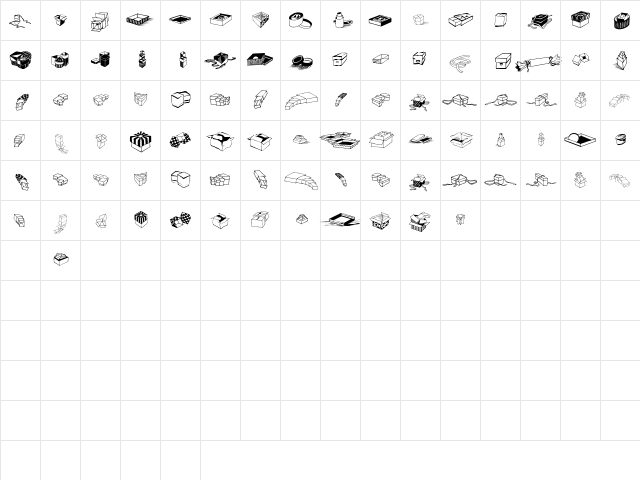
Zoeboxes Normal Free Font
Zoeboxes Normal
Design Context for Zoeboxes
Zoeboxes is a composed and adaptable typeface that performs quietly and consistently across a wide range of design contexts.